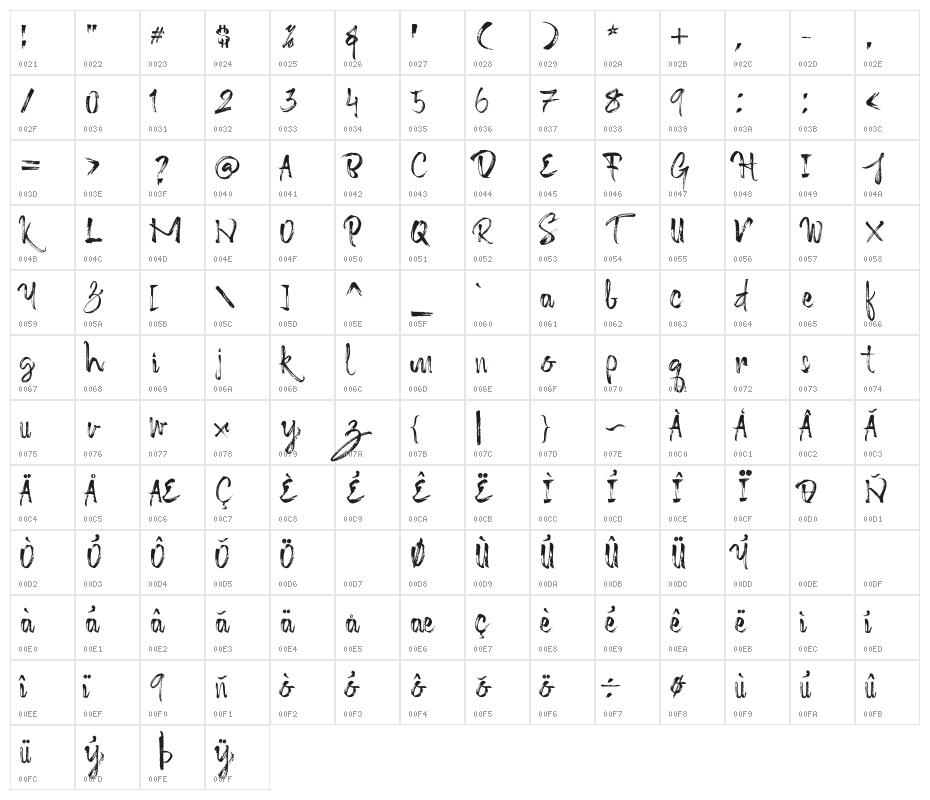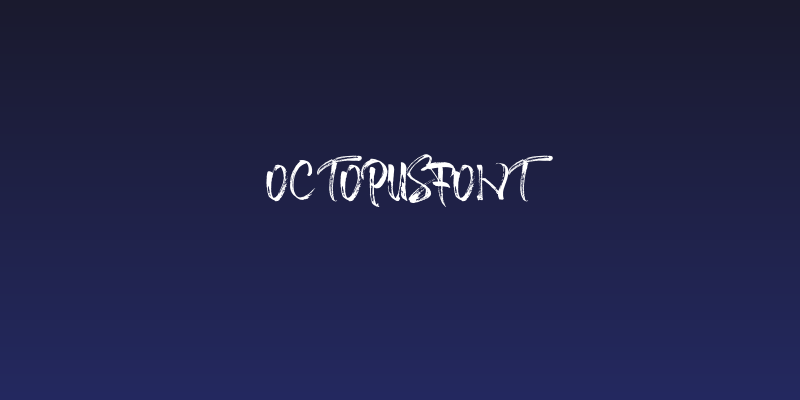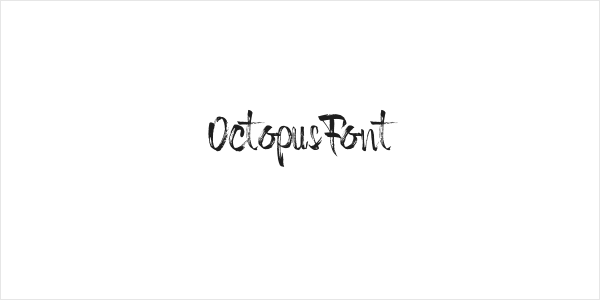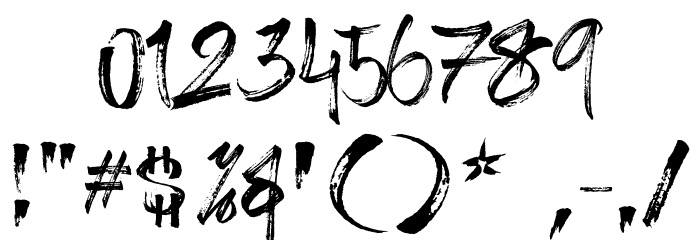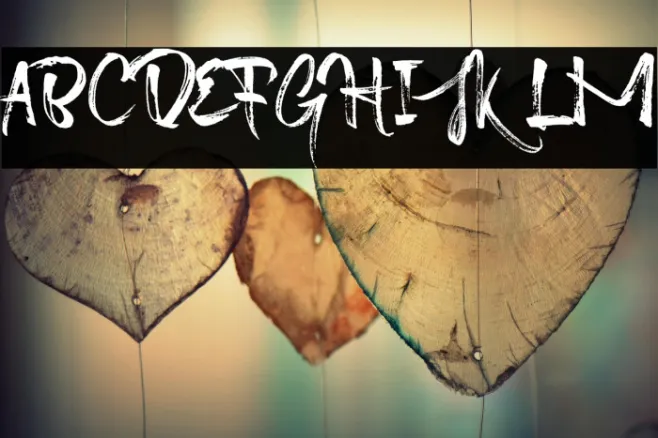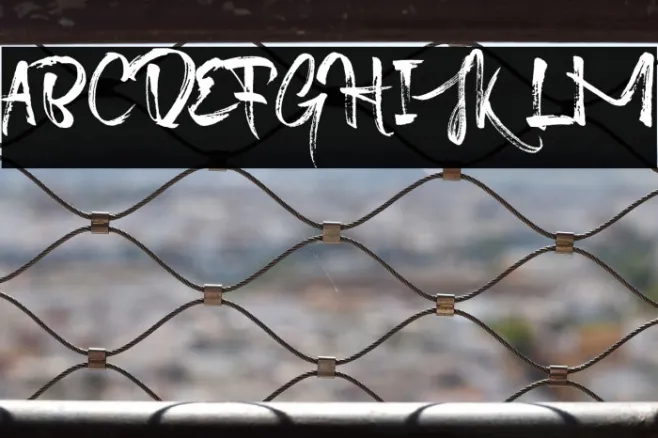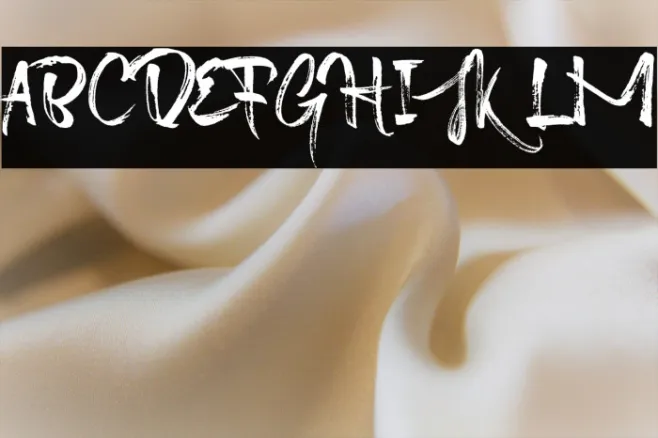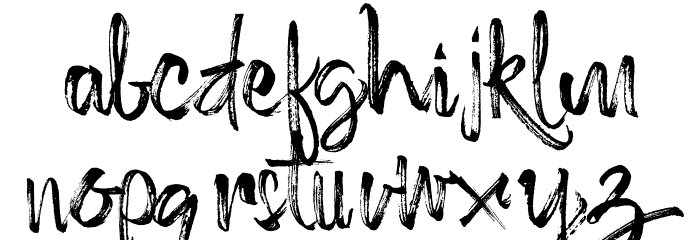
OctopusFont Font
OctopusFont Description
This font exhibits a bold, expressive style with a brush-like texture that gives it a dynamic and artistic flair. The strokes are uneven, adding a sense of movement and energy to the characters. The uppercase and lowercase letters maintain a consistent flow, with some characters featuring dramatic flourishes and swashes. The numbers and special characters are equally expressive, maintaining the same brush-stroke aesthetic. This font's unique style makes it stand out, perfect for creative projects that require a touch of personality and artistic expression.
| Proposed Projects | Ideal for artistic projects, branding, posters, and invitations where a creative and expressive style is desired. |